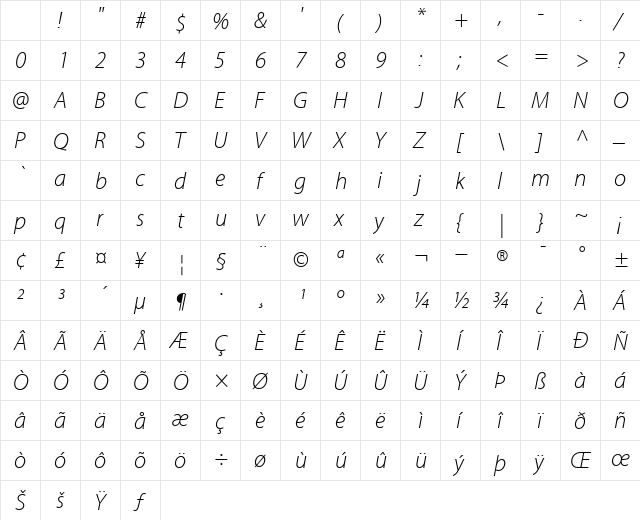
AdobeCorporateIDMyriad-Light LightItalic
Design Context for AdobeCorporateIDMyriad-Light
AdobeCorporateIDMyriad-Light is a composed and adaptable typeface that performs quietly and consistently across a wide range of design contexts. The slanted form adds forward momentum and visual energy. Its slender proportions lend an understated elegance to any composition.
Pro Tip: Use AdobeCorporateIDMyriad-Light for emphasis, pull quotes, and subheadings where its slanted energy can add rhythm to the layout.